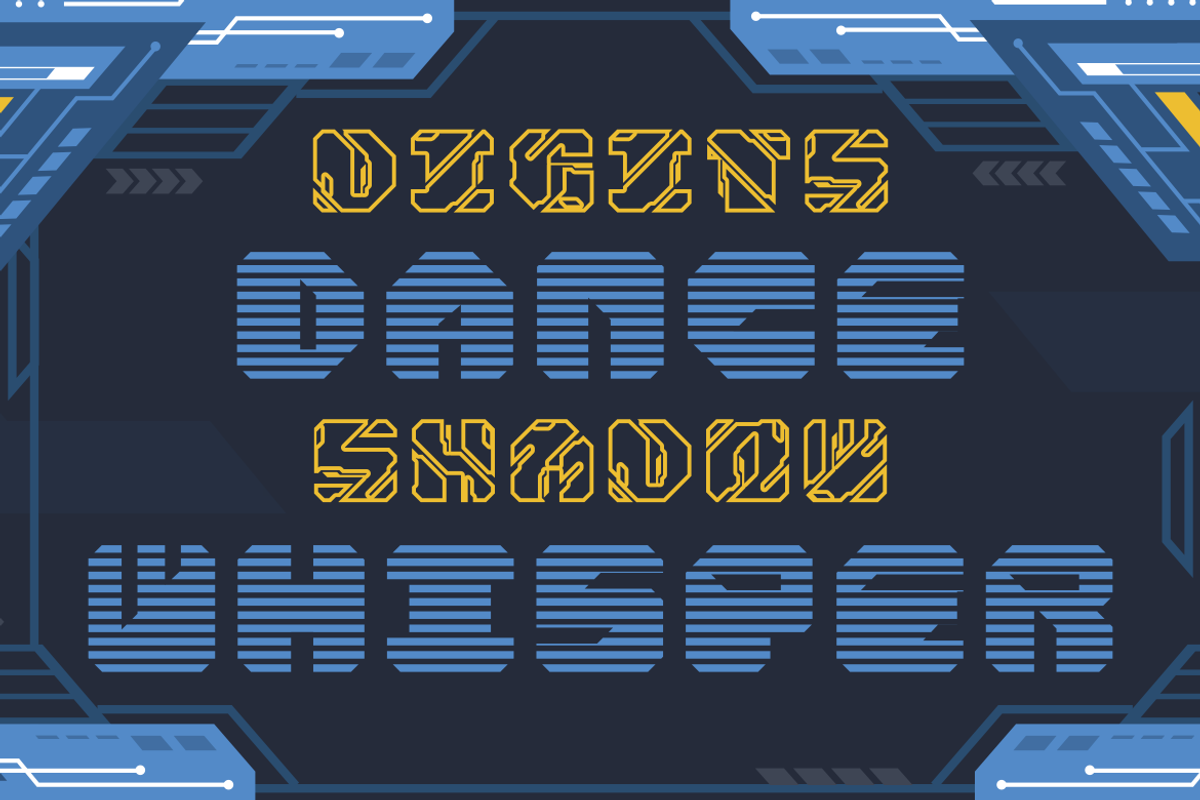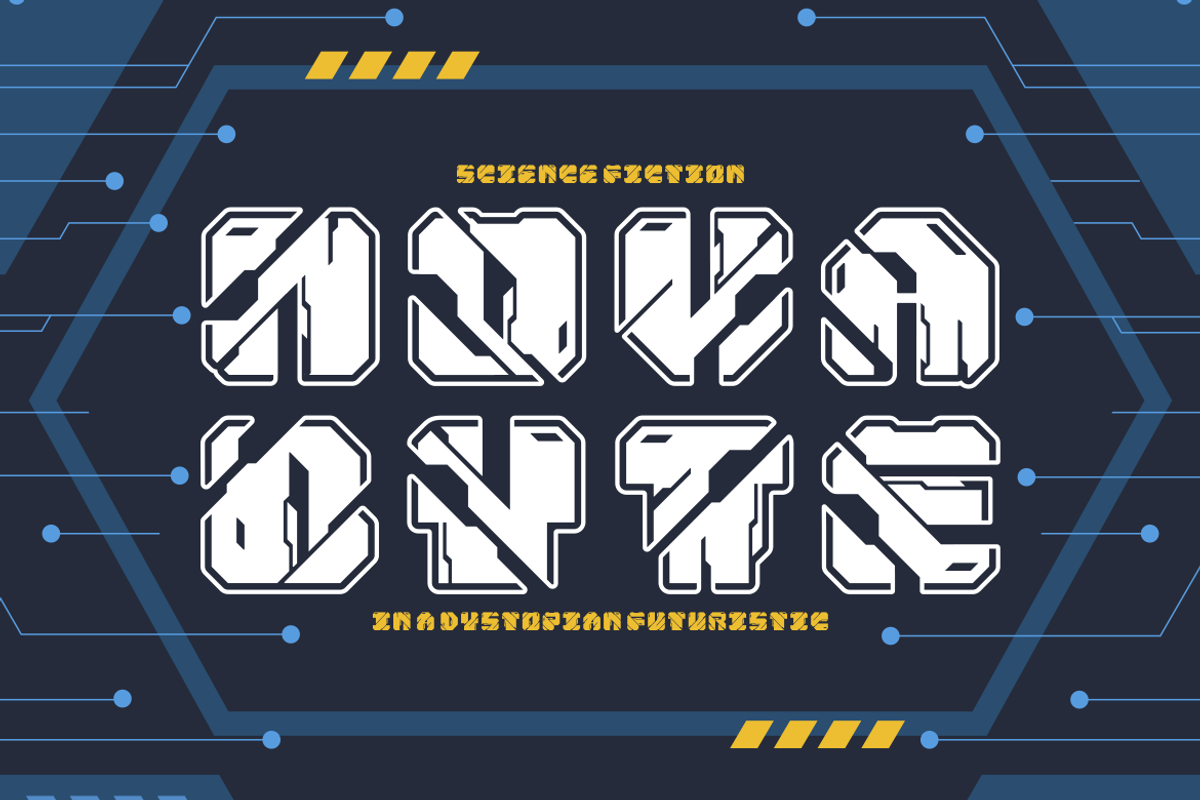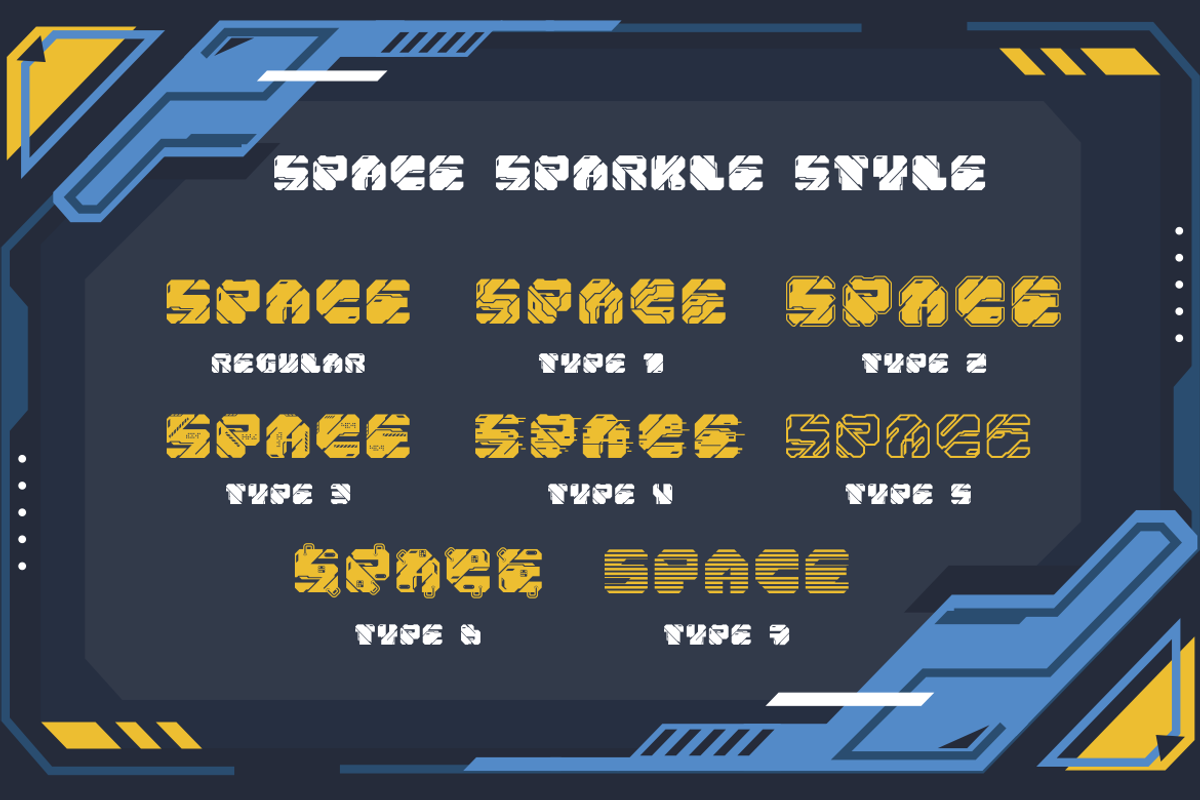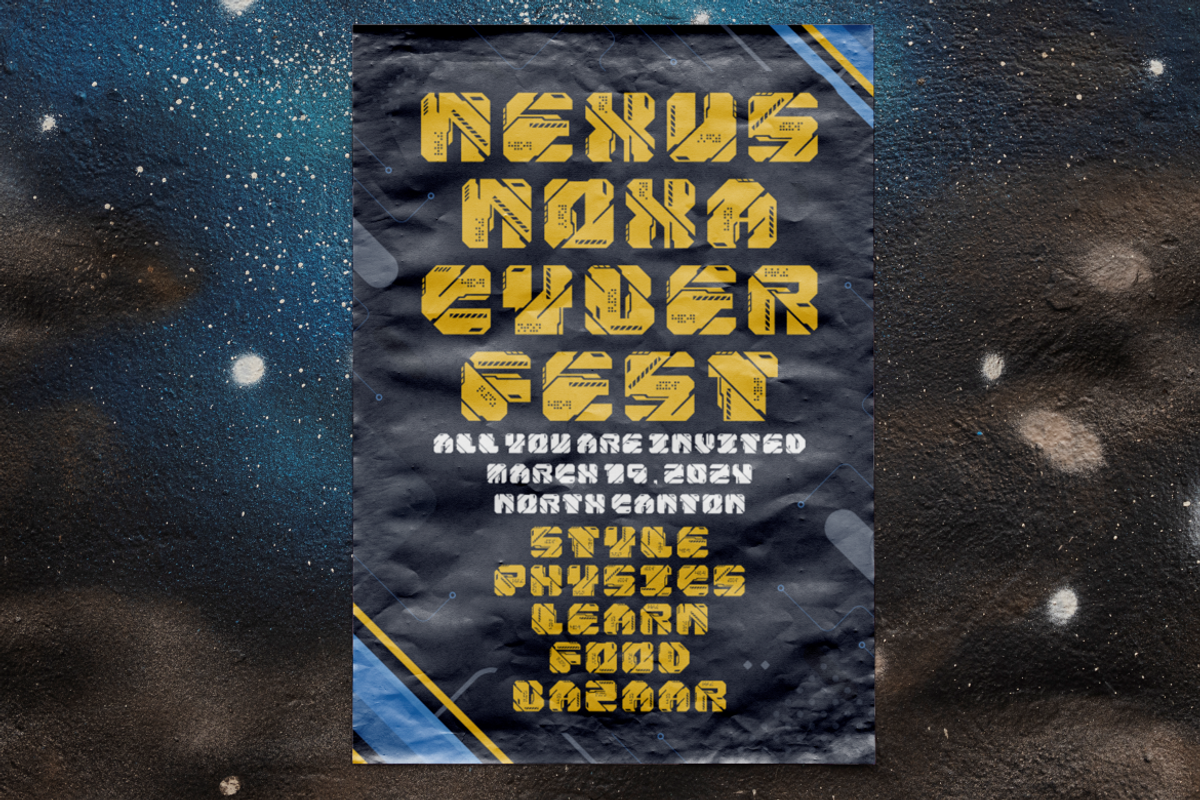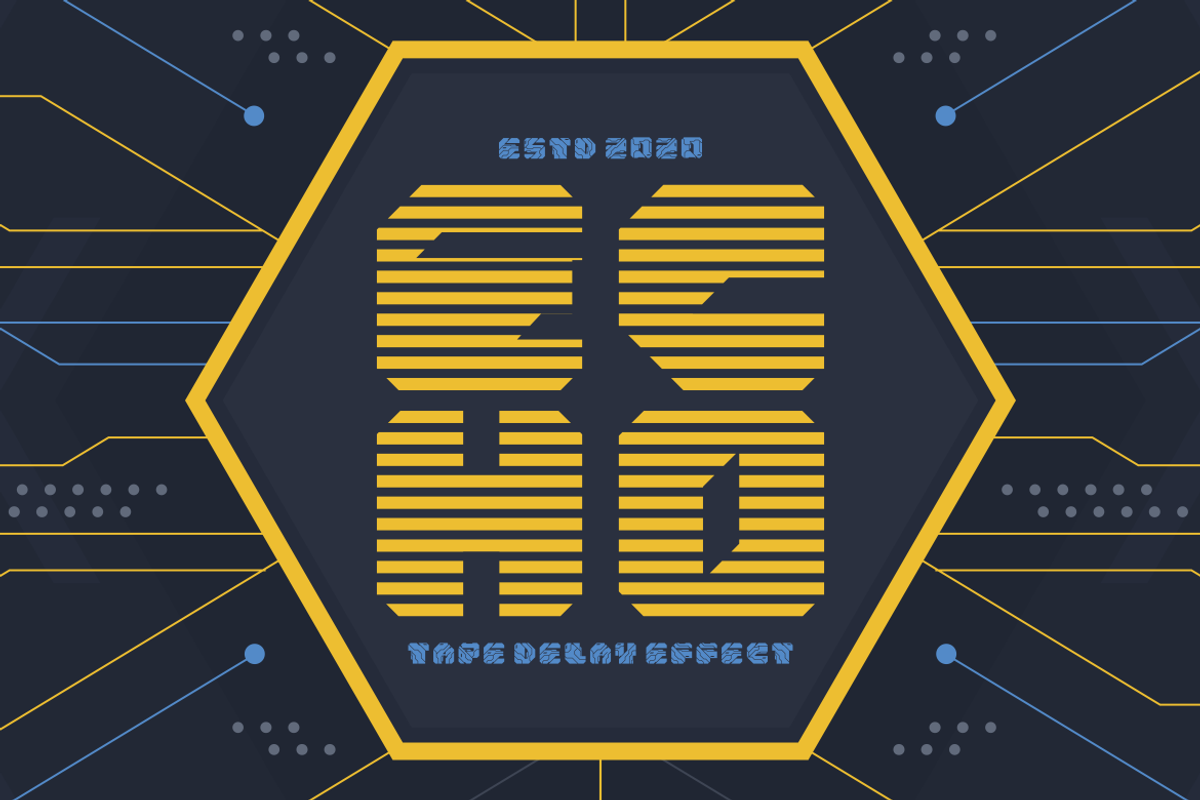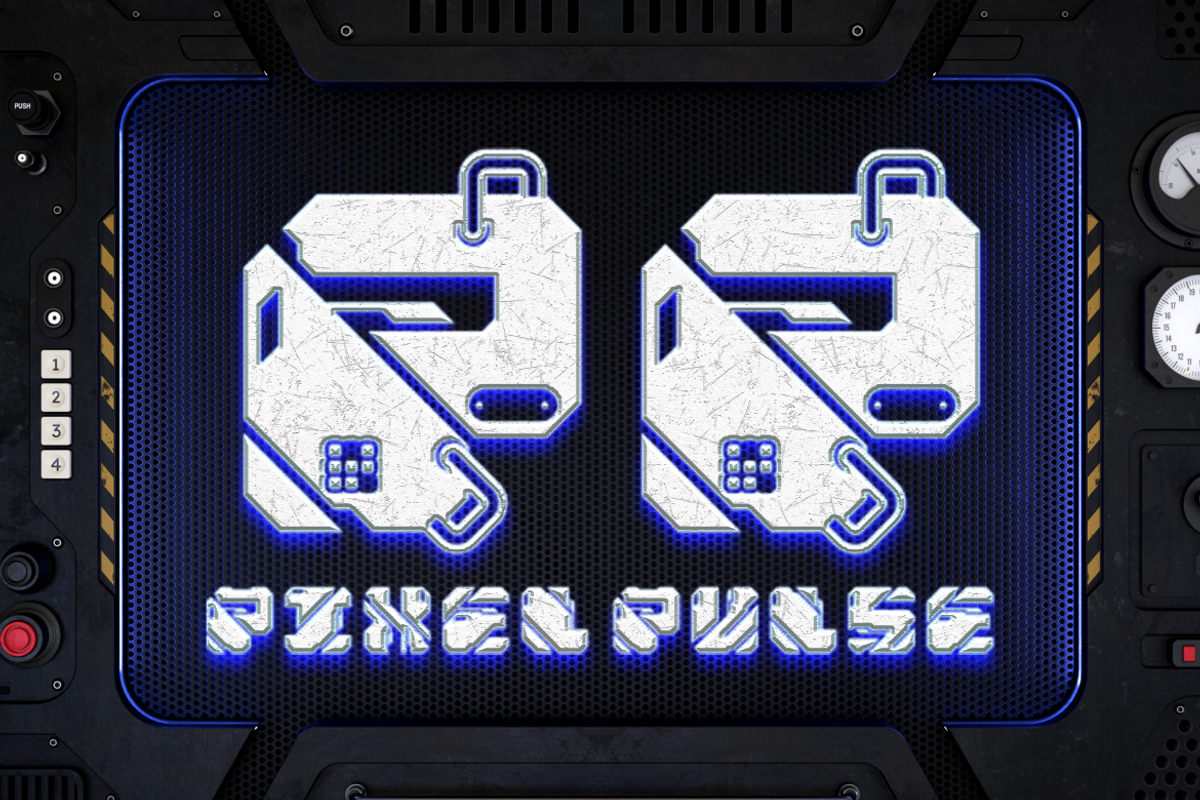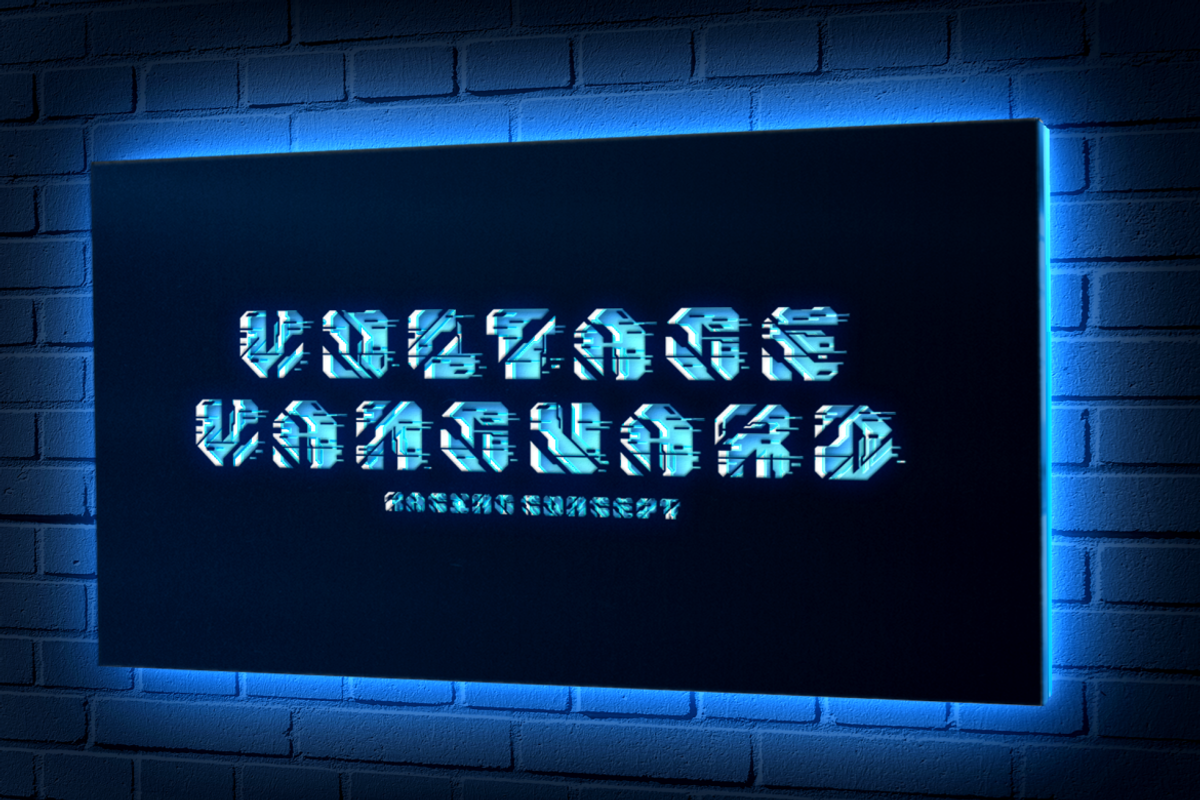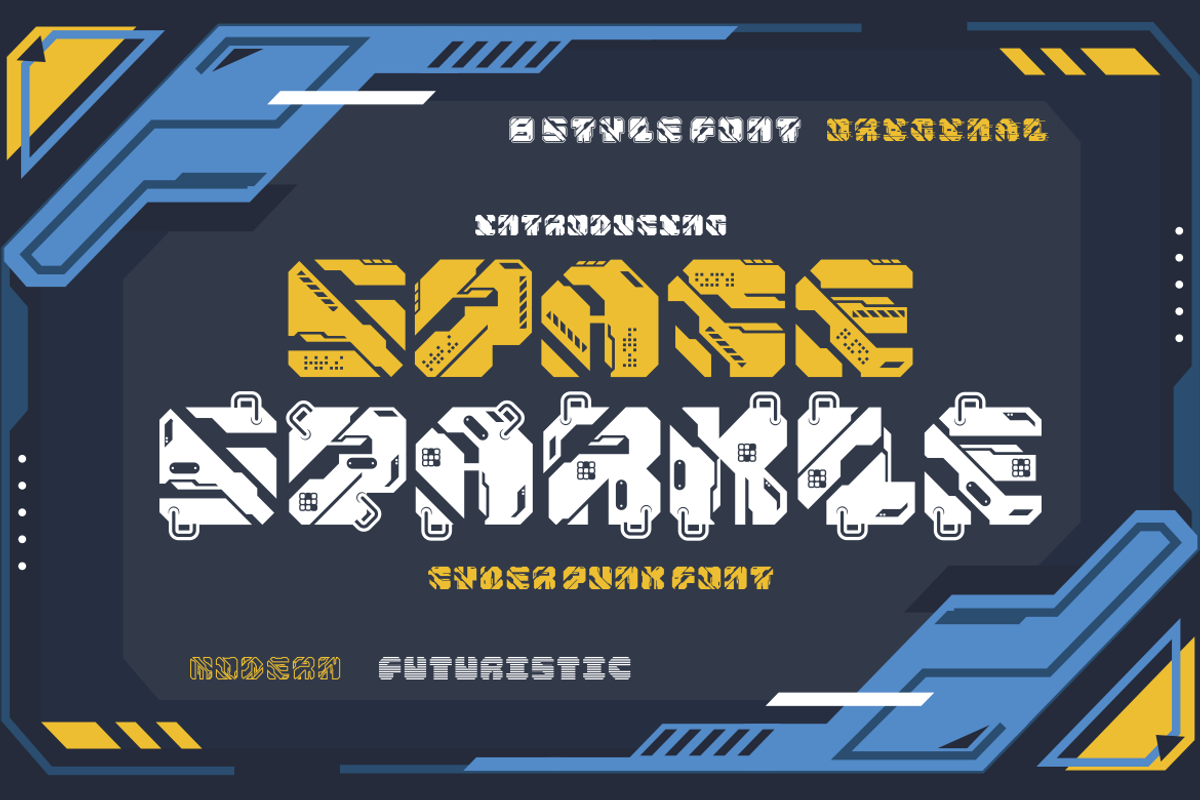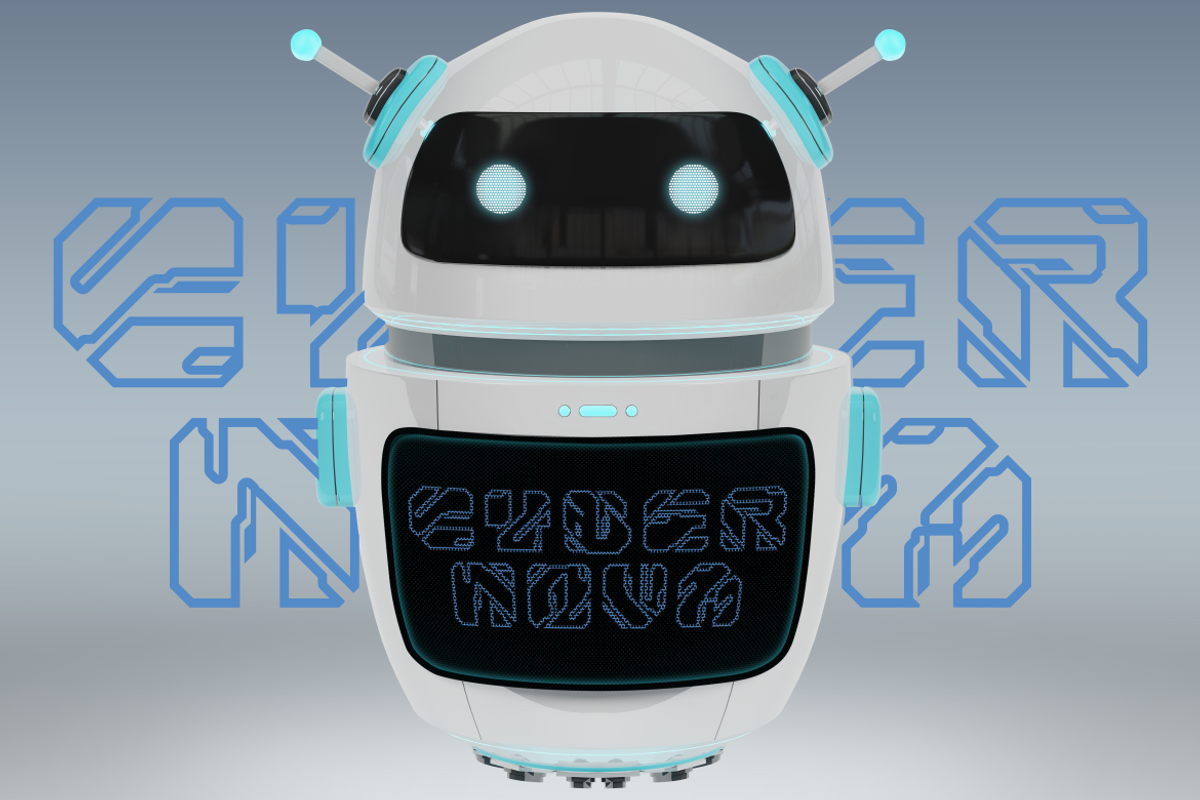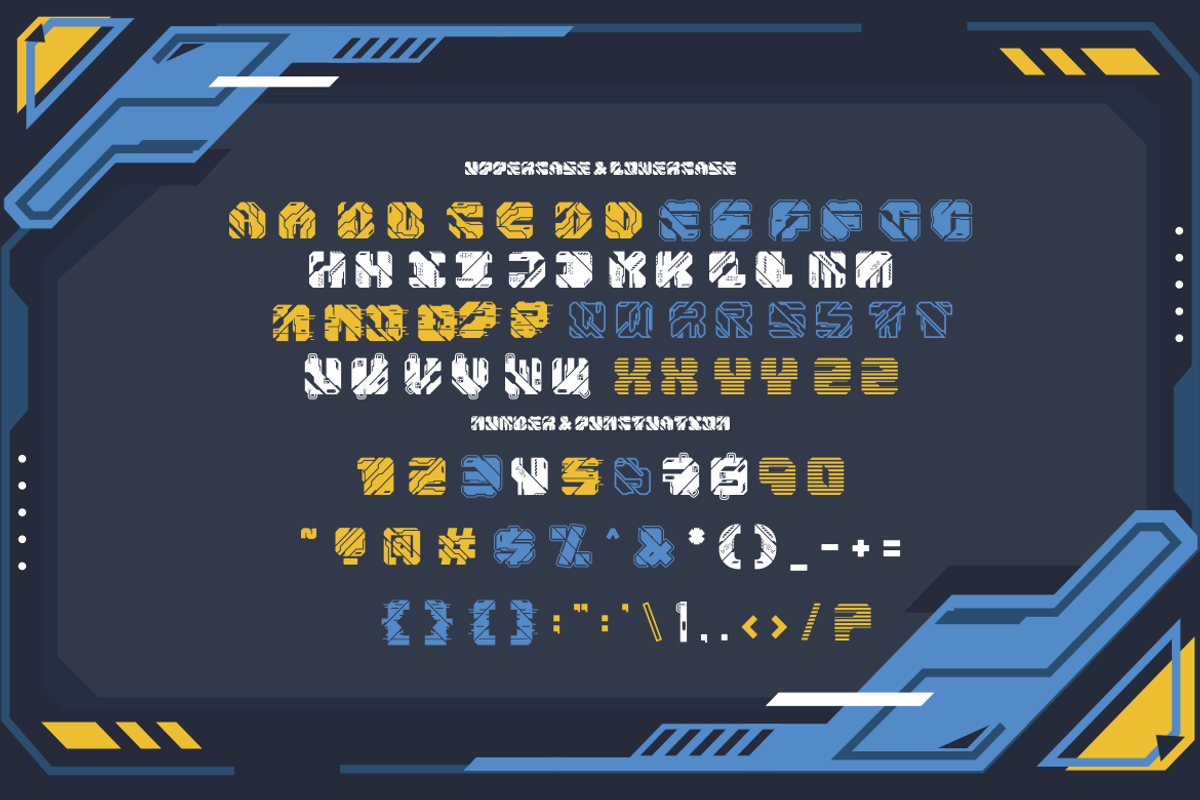
Space Sparkle - Cyber Punk Font
Embark on a typographic odyssey with Space Sparkle, a Cyber Punk Font that propels your designs into the digital frontier. This font is a tribute to the rebellious spirit of cyberpunk culture, infused with techno vibes and a futuristic outlook. Space Sparkle’s sharp angles and geometric shapes capture the essence of a world where technology and humanity intertwine. Its characters are designed to stand out, making a bold statement in any digital landscape. From the neon-lit streets of cyber cities to the sleek interfaces of tomorrow’s devices, Space Sparkle is your gateway to creating a compelling narrative in the realm of tech aesthetics.
Ideal for projects that demand a touch of the avant-garde, Space Sparkle excels in crafting logos, branding, invitations, packaging, posters, titles, and more. It’s a font that speaks the language of innovation, perfect for businesses that want to showcase a cutting-edge identity or for designers who aim to leave a lasting impression with their creative works. With Space Sparkle, your message isn’t just delivered; it’s launched into the stratosphere of imagination and possibility.